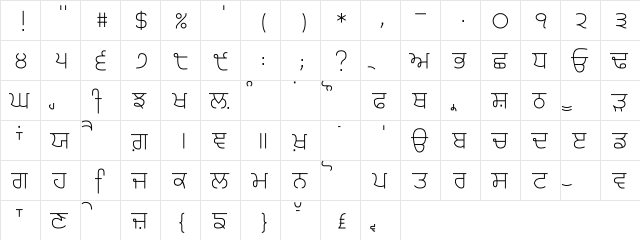
Gurvetica a3 Light Light Font Preview
Gurvetica a3 Light Light
Gurvetica a3 Light Light Font Details
Design Context for Gurvetica a3 Light Typeface
Gurvetica a3 Light takes a measured approach to typography — its balanced proportions and neutral character make it a reliable workhorse for both digital and print work. Its slender proportions lend an understated elegance to any composition.